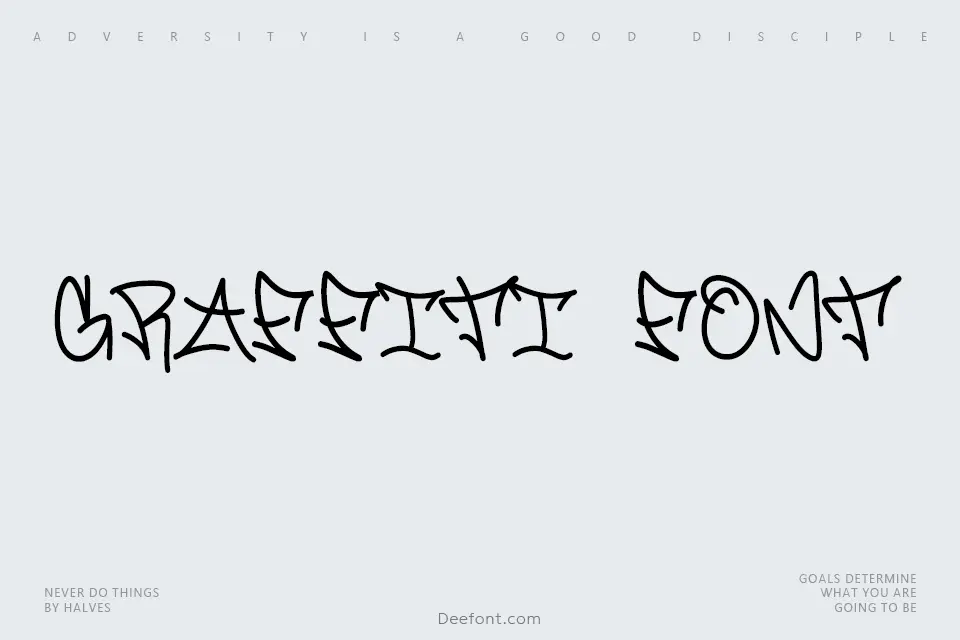
Graffiti font Font
Graffiti Font is a dynamic script typeface designed to capture the energetic essence of street art lettering. Featuring bold, freehand characters with an urban graffiti aesthetic, this typeface is perfect for creative projects, poster designs, and artistic displays. The font excels at adding personality and visual impact to headlines, branding, and decorative applications. With its distinctive graffiti-inspired style, Graffiti Font brings authentic street culture to digital typography.